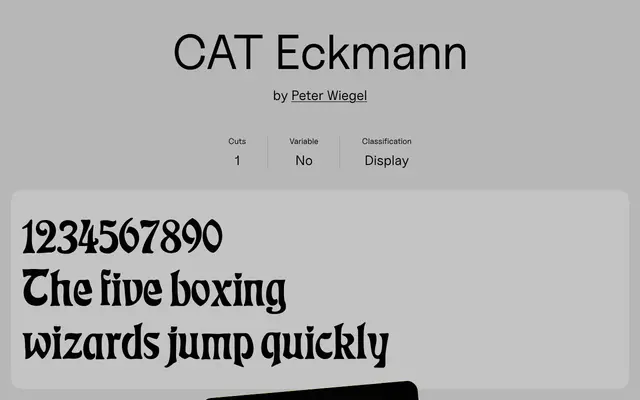
CAT Eckmann
A single-cut display revival by Peter Wiegel, drawing on the Jugendstil tradition of Otto Eckmann's original 1900 typeface.
A free display typeface by Peter Wiegel distributed under the SIL Open Font License, making it available for both commercial and personal use. The design references Eckmann, the art nouveau typeface drawn by Otto Eckmann at the turn of the twentieth century, placing it in the decorative revival tradition. Available in one cut with no variable axis, it is a straightforward offering for projects that need period-appropriate ornamental lettering.
Classified as Display by the foundry; the name references Eckmann, a Jugendstil typeface from 1900, suggesting a decorative or historical revival character suited to display use.